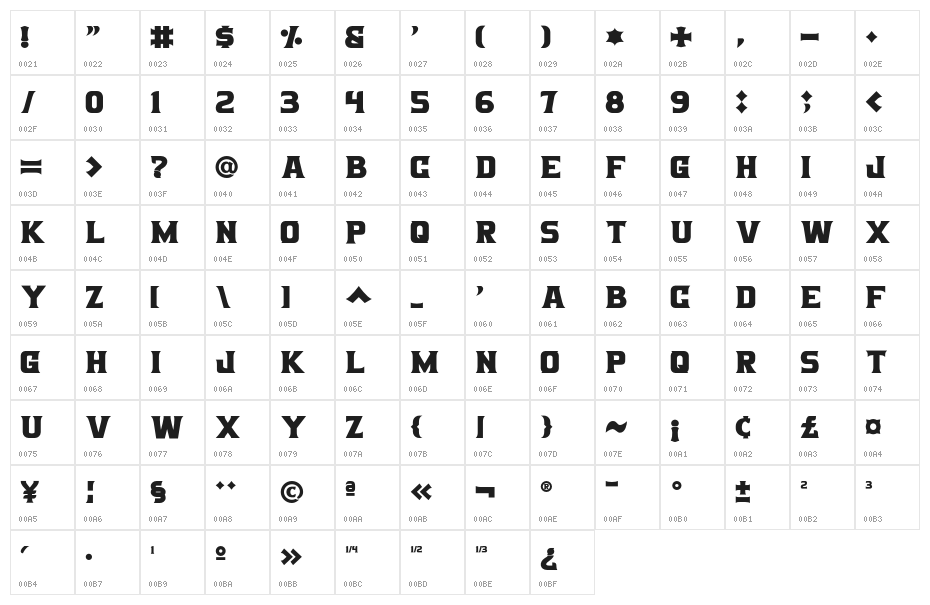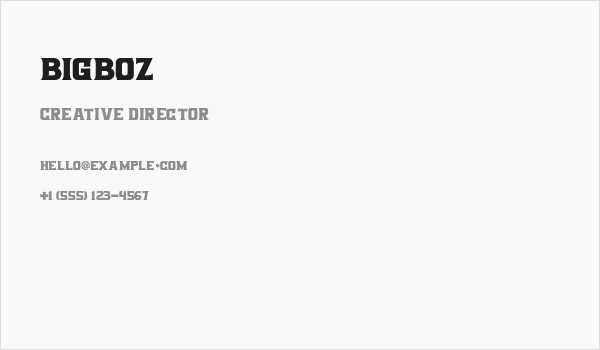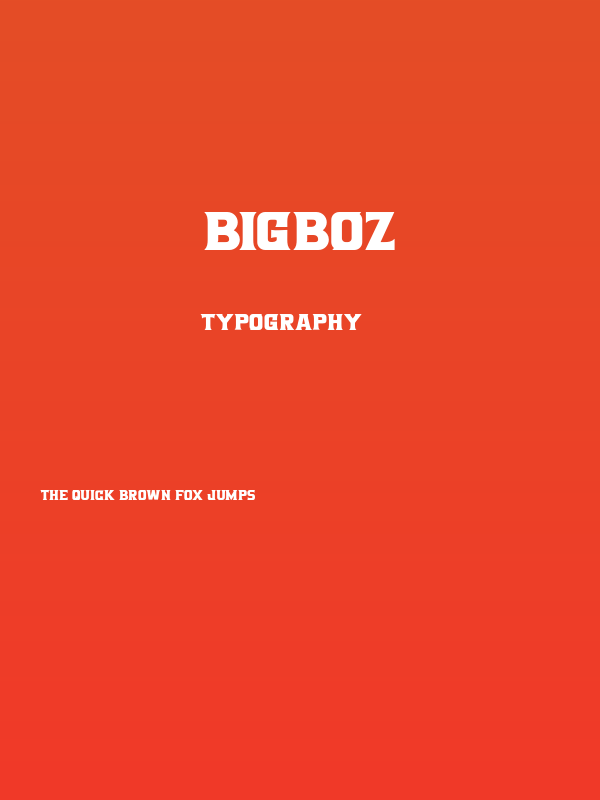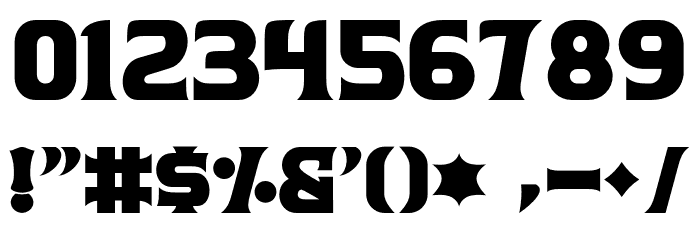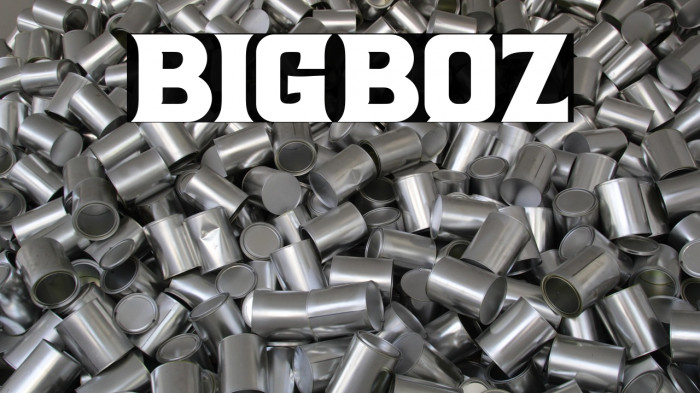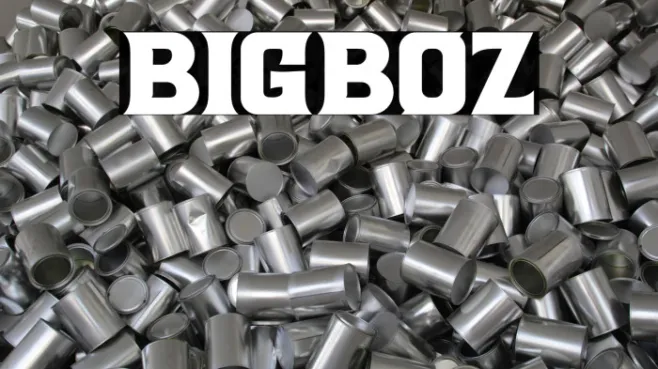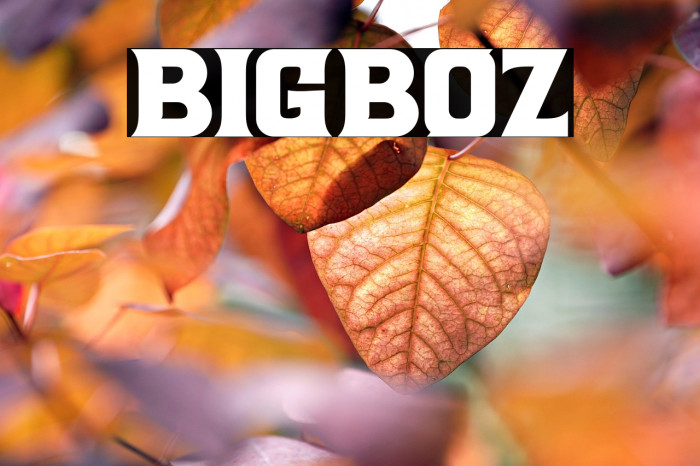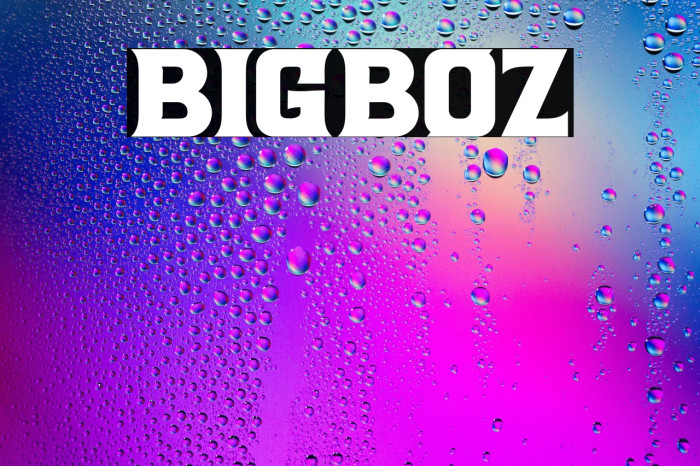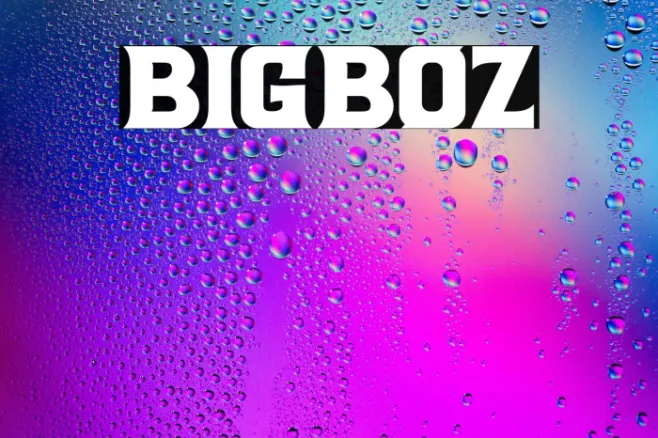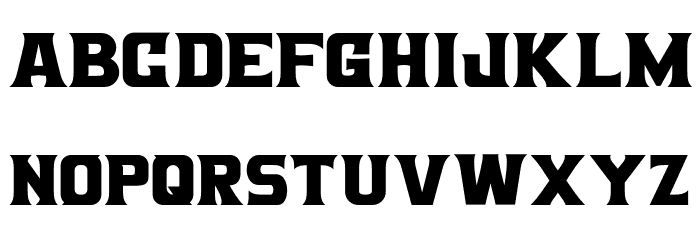
Bigboz Font
Bigboz Description
This font features bold, angular characters with a strong presence. The uppercase letters are particularly striking, with sharp edges and a geometric style that conveys a sense of power and modernity. The lowercase letters maintain this boldness, offering a consistent look across all text. Numbers are equally robust, ensuring clarity and impact. Special characters are designed with the same attention to detail, making them stand out. This font is ideal for projects that require a commanding and assertive typeface.
| Proposed Projects | Ideal for branding, posters, headlines, and any design needing a bold statement. |